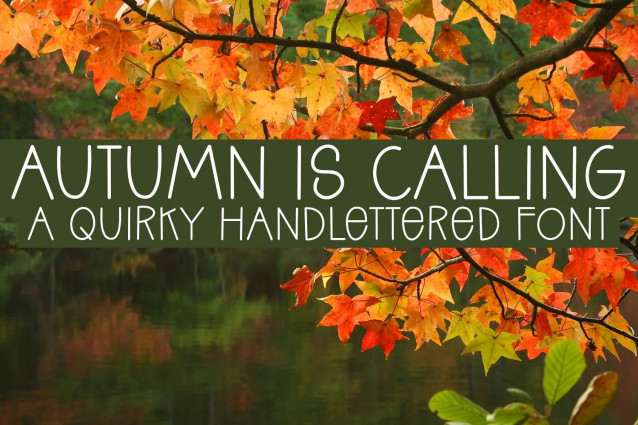
FB Autumn Is Calling Font
FB Autumn Is Calling Font – A Quirky Handlettered Font. It would be a perfect choice to design posters, affiches, logos, t-shirt and magazine prints, eye-pleasing typographic designs and more.